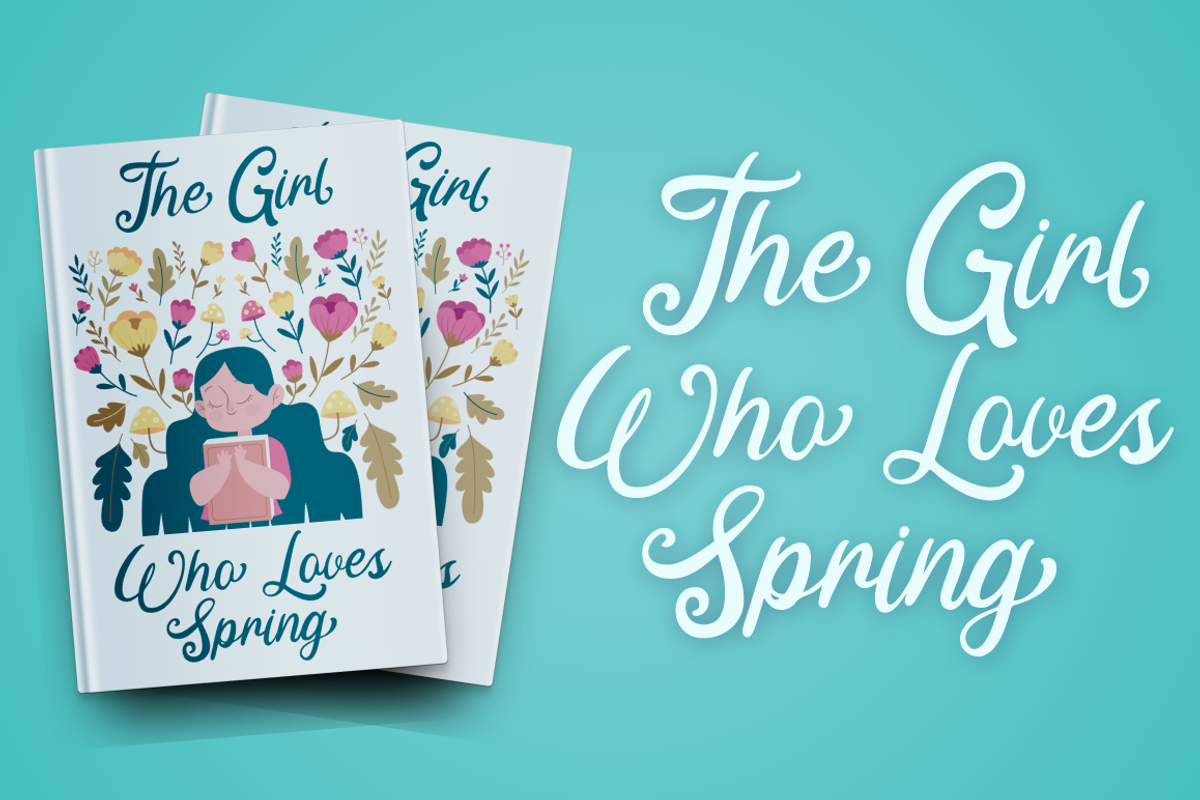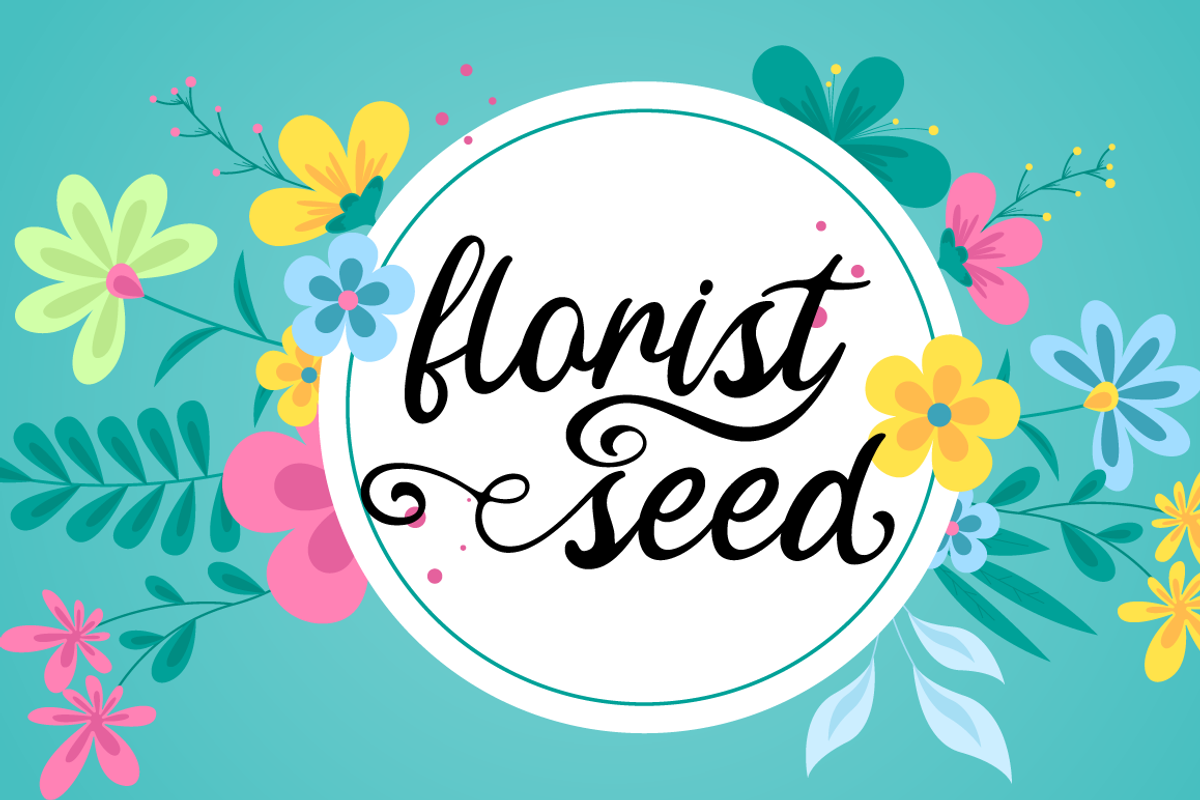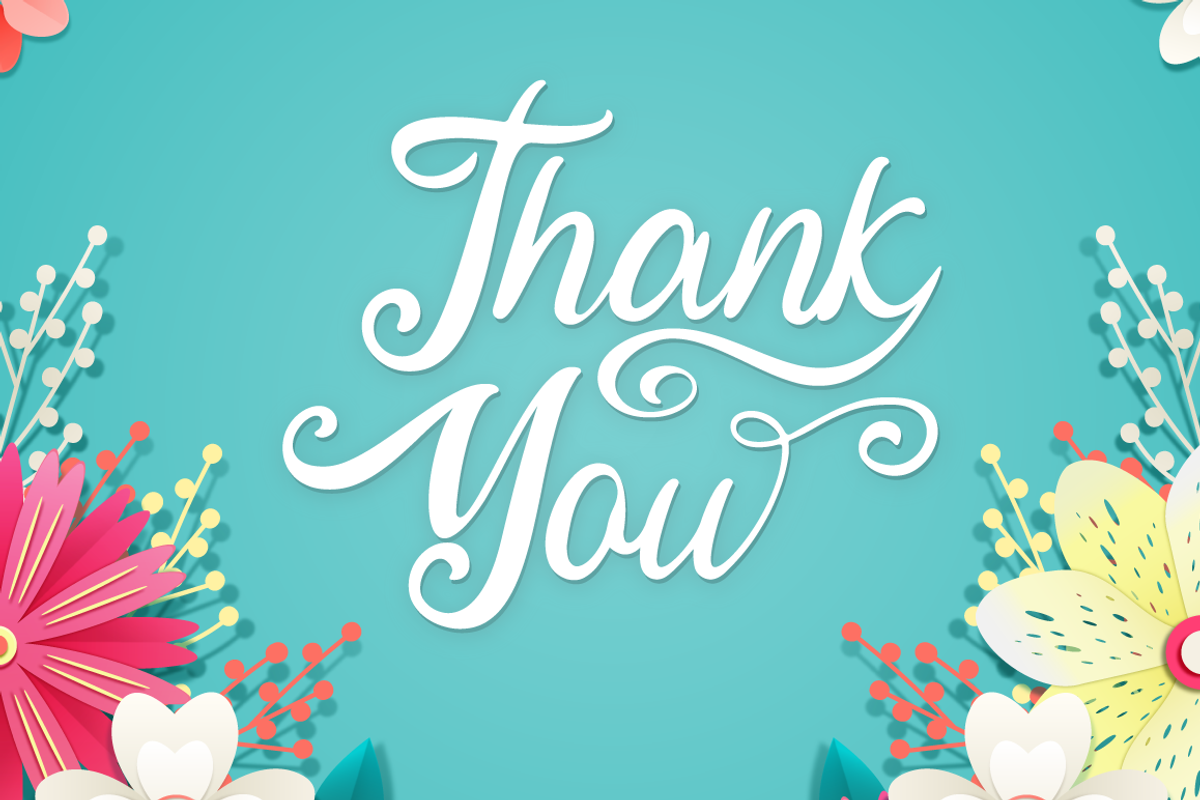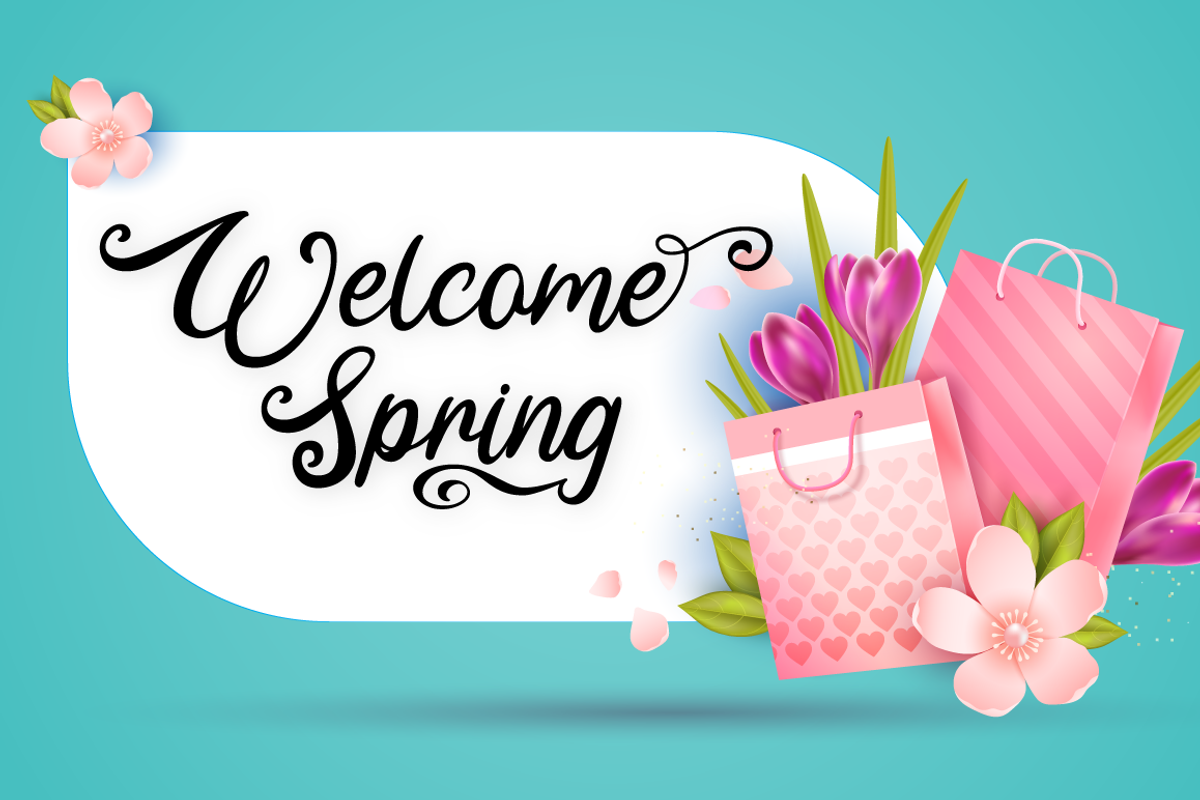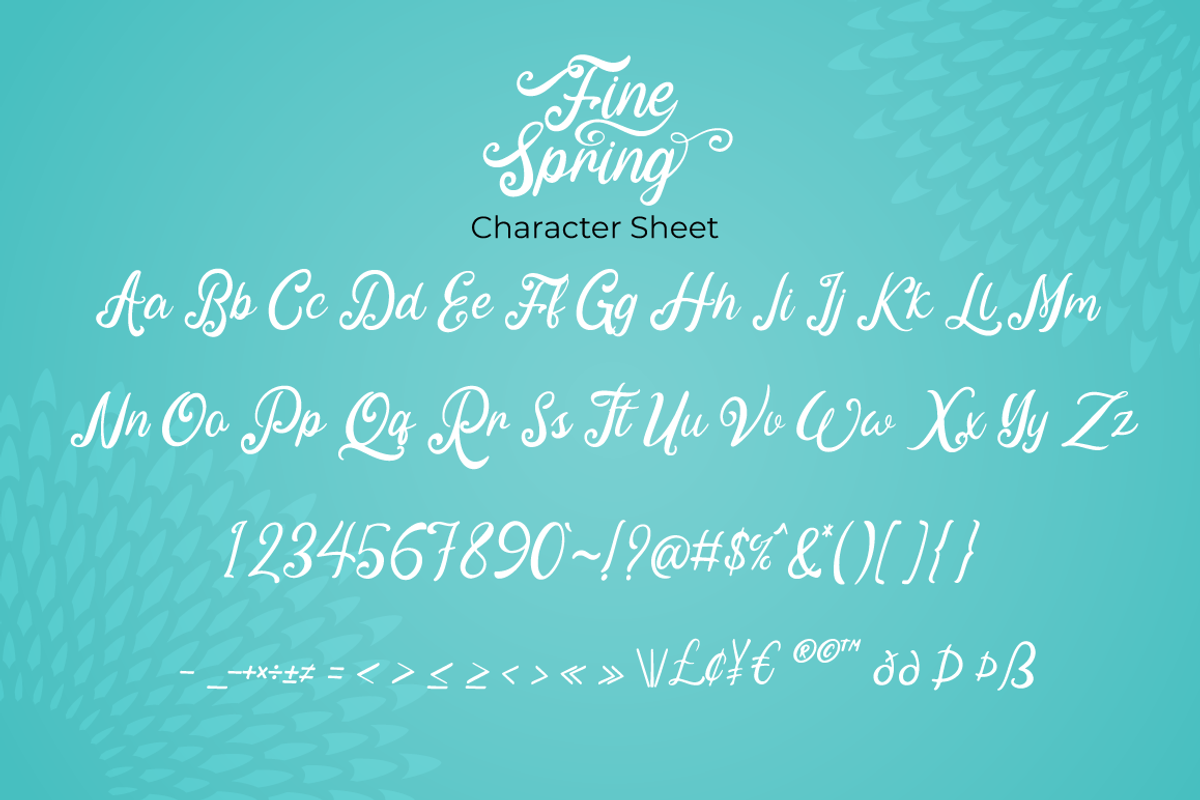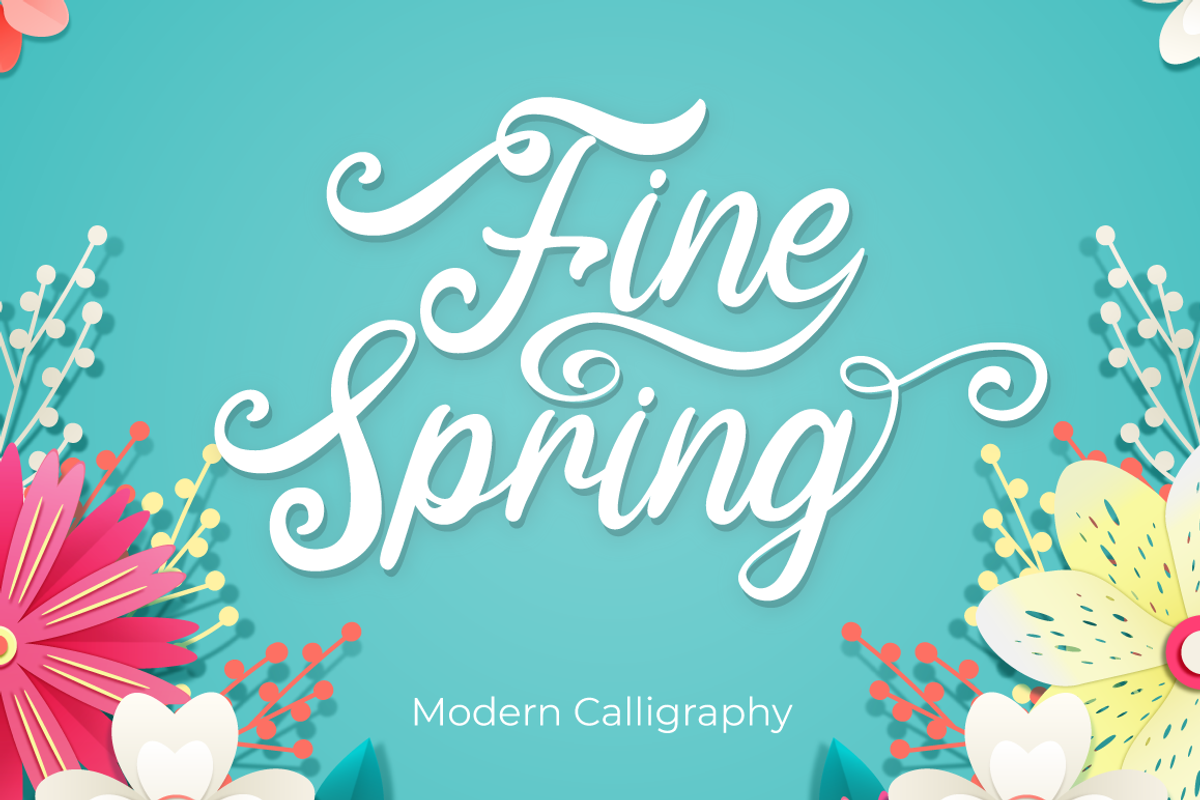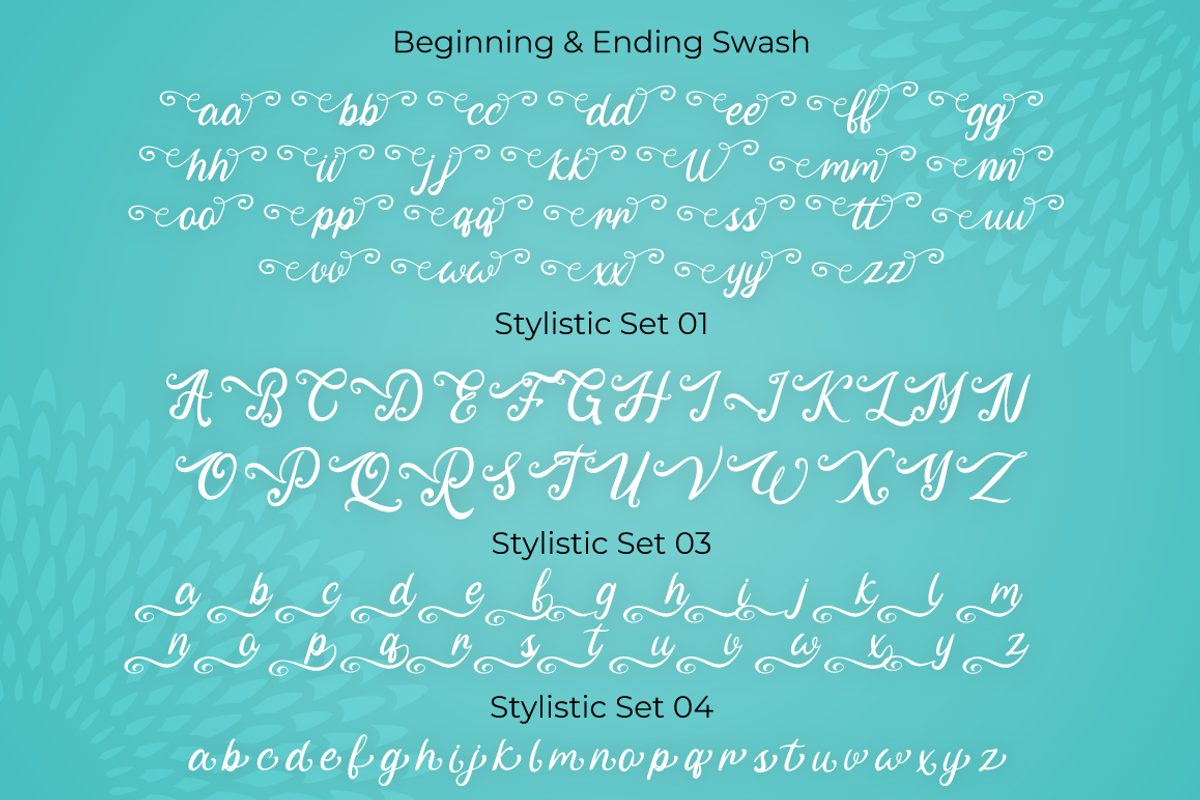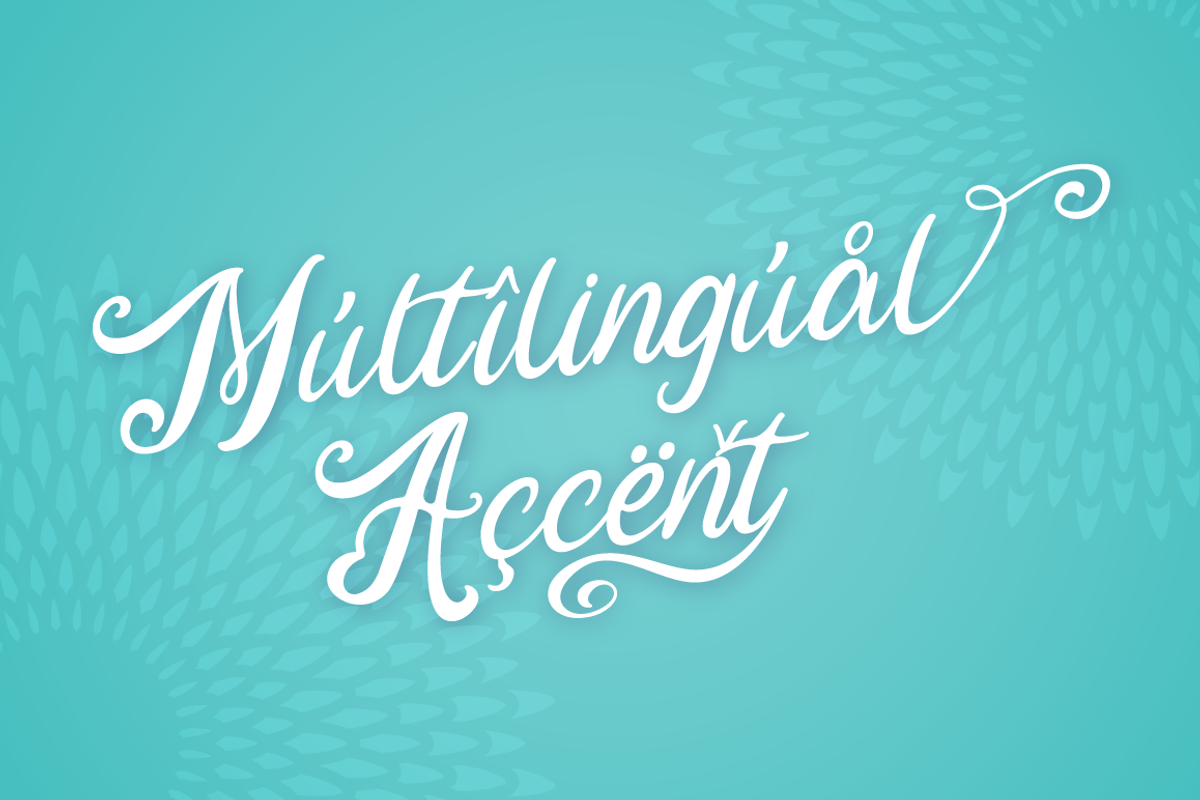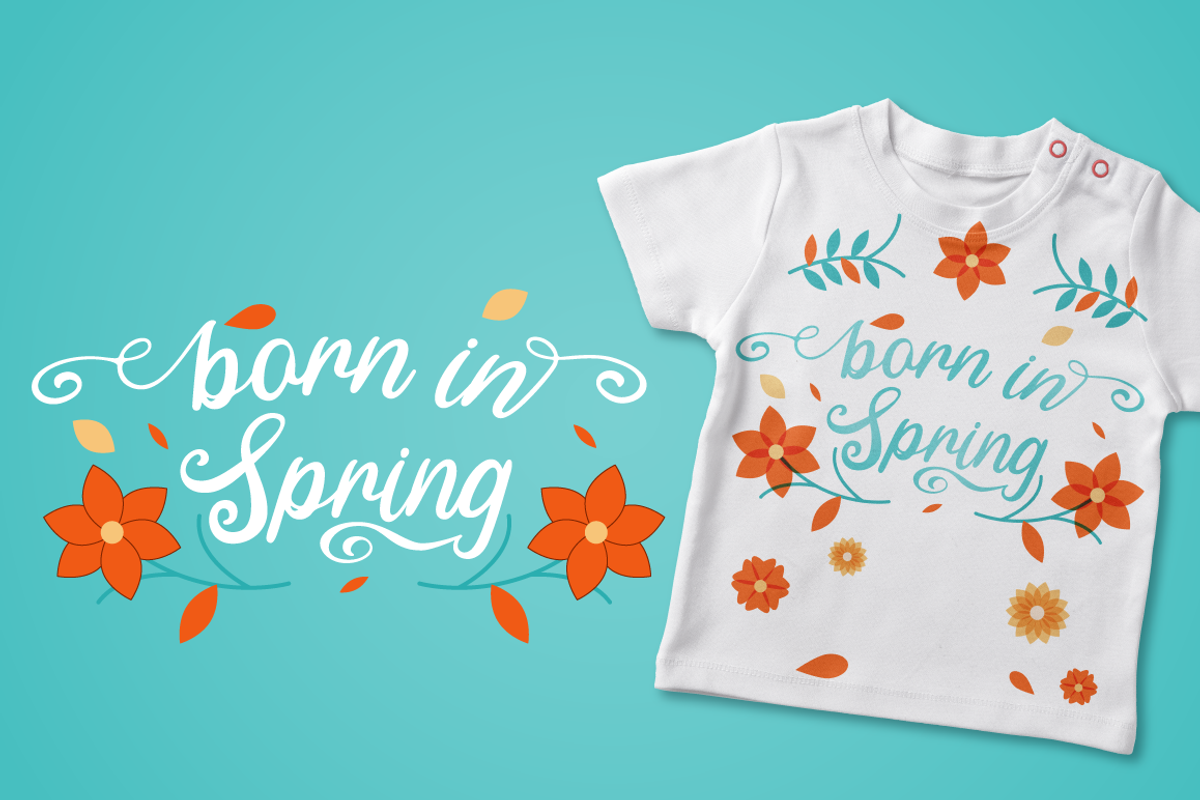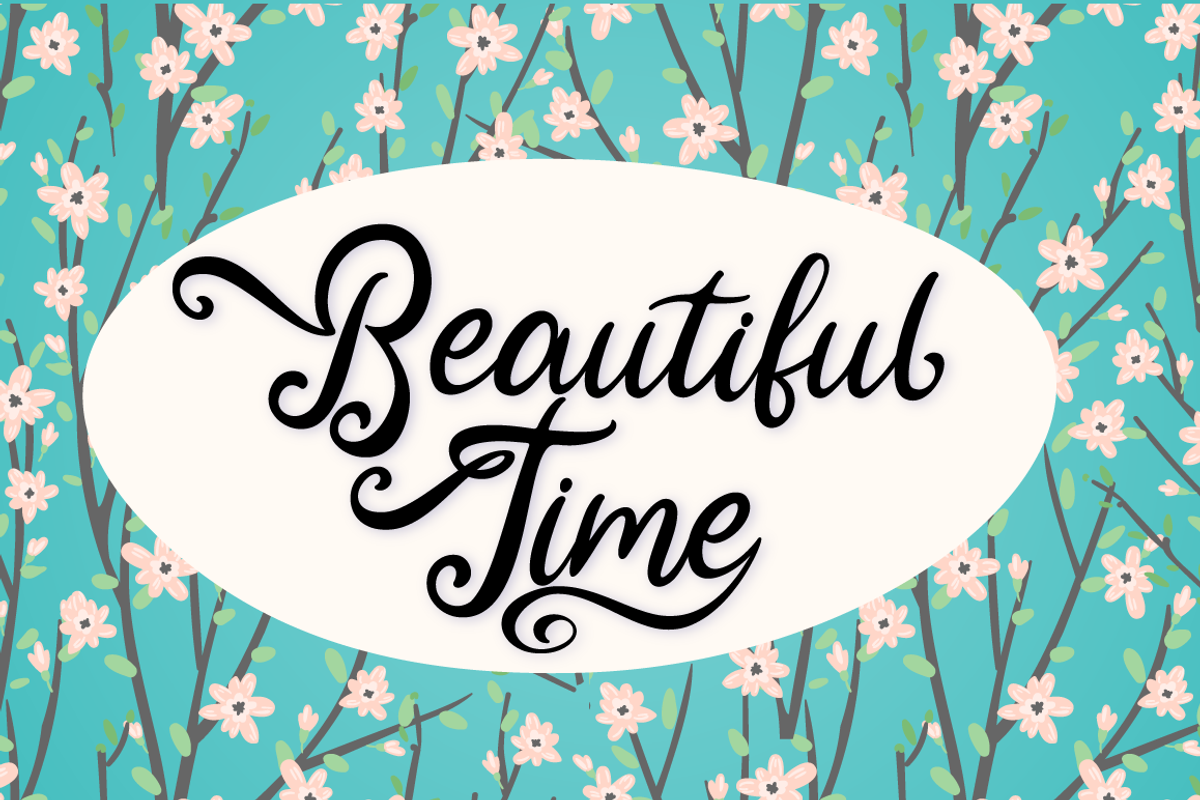
Fine Spring
Fine Spring is lovely display font inspired by spring season, including 4 stylistic set that perfect for any combination for your design. Fine Spring perfectly macth for desgign with valentine theme, any product like book cover, t-shirt, branding, promotion, social media post, quotes, wedding, photography and more.
- More than 400 glyph
- Support Opentype features